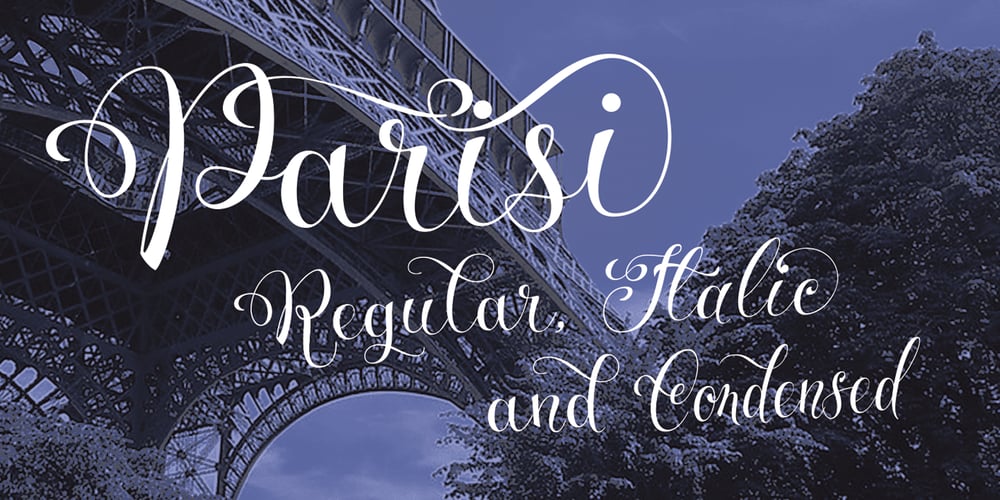
Parisi Font Family was designed by Carine de Wandeleer and published by Eurotypo. Parisi contains 3 styles and family package options. The Parisii was a small Gallic people settled in the current Paris region, which gave its name to the city of Paris. According to Caesar (53 BC.), their main town (oppidum) was Lutetia (Paris). Parisii was born of inspiration to be leafing through some old magazines on the terrace of a cafe in the beautiful city that is Paris. Parisi is like the city: casual, youth, romantic, free spirited and, at the same time, sophisticated, elegant and classic. The Parisi family font is a lovely and casual handlettering script, which is based on gestual calligraphy. Parisi has a slight bounce and intentional irregularity giving your words a wonderful flow. Fat and thin stroke in this font impresses the harmony. Parisi consists of 3 subfamilies: Regular, Italic and Condensed. This font includes Parisi font has OpenType features such as Stylistics and Contextual alternates, swashes, Standard and Discretional Ligatures, stylistic sets and ornaments that allow you to mix and match pairs of letters to fit your design. This will help your creativity and make it easier to make the impressive and elegant typographic work. This OpenType features may only be accessible via OpenType-aware applications, a Central European language support. Parisi looks lovely on wedding invitations, greeting cards, logos, business-cards and is perfect for using in ink or watercolour based designs, fashion, magazines, food packaging and menus, book covers and more!